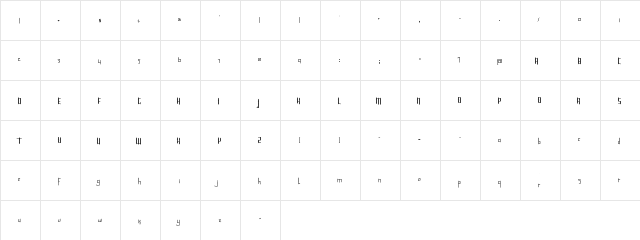
Roncial Regular
| Designer | Painajainen |
Design Context for Roncial Typeface
Roncial offers clean, dependable letterforms without strong stylistic allegiance, making it a practical choice for designers who need flexibility.